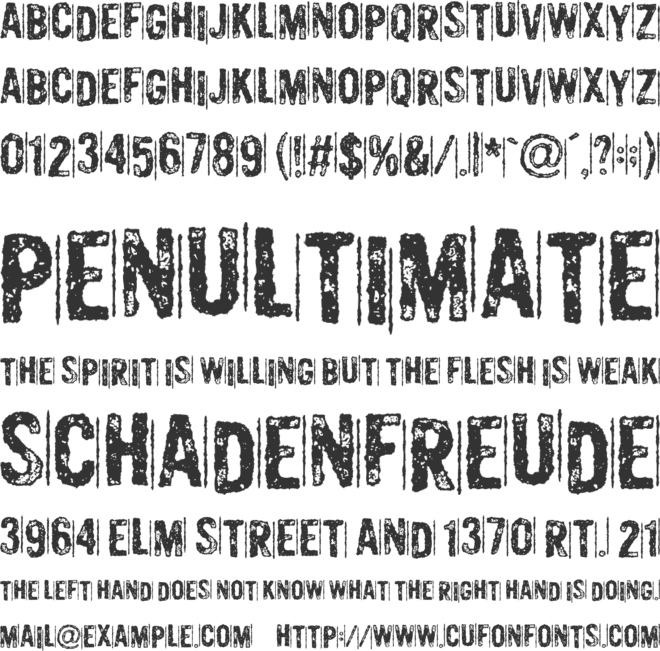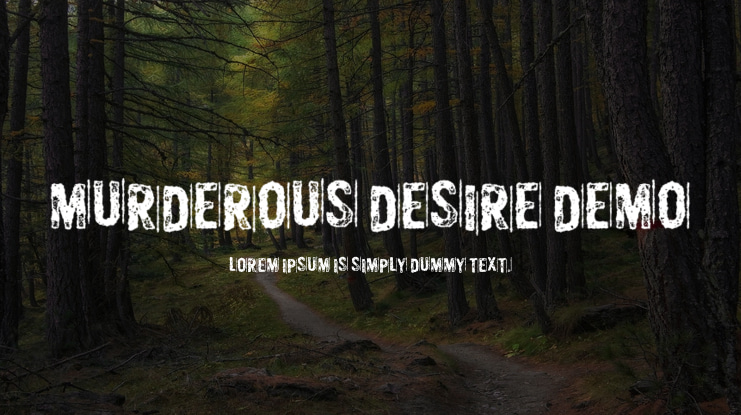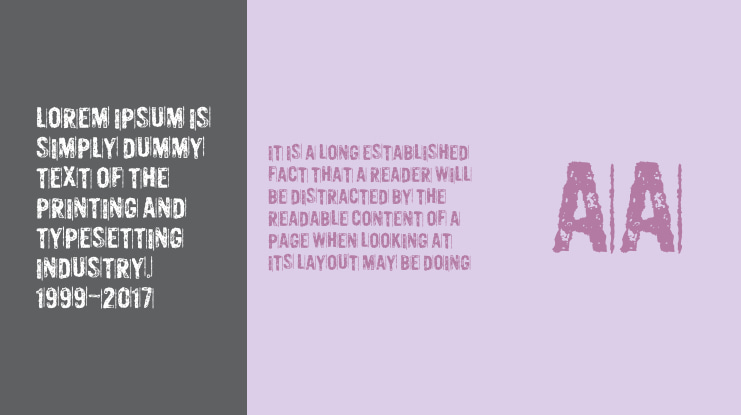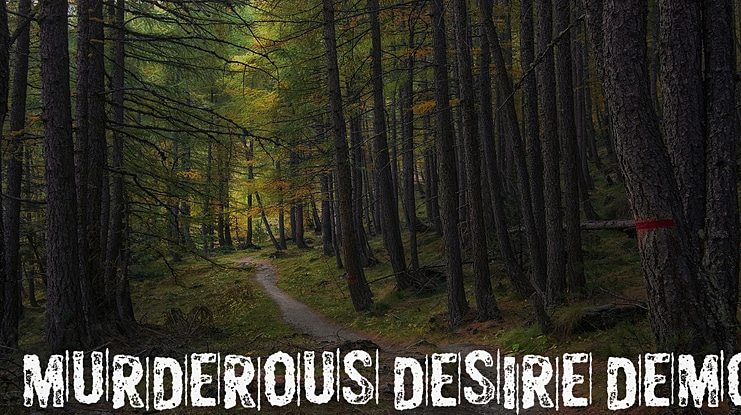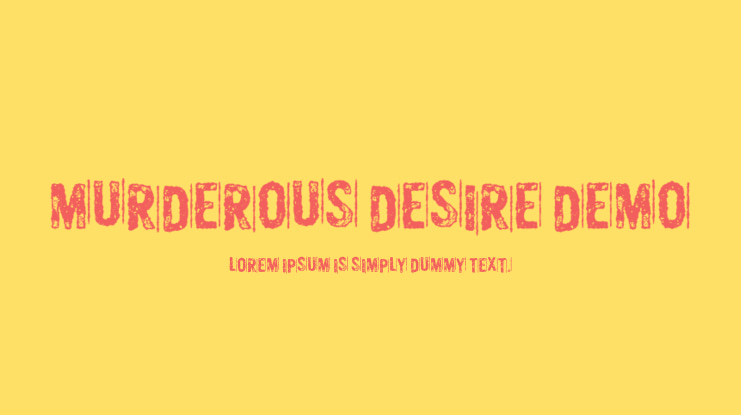
Murderous Desire DEMO Font
Murderous desire for grunge! Grunge is timeless, and Murderous Desire is worn and torn, yet very legible. Great for massive text or headlines! The shareware version comes with different lower- and uppercase plus alternate letters and on top of that, ligatures for double letters! Go crazy, go grunge - and use Murderous Desire!